21 Best Gaming Fonts to Level Up Your Style and Visuals
Gaming fonts are one of the key elements in shaping a game’s visual identity for a memorable player experience. Number Analytics shows that typography in game design not only improves readability but also strengthens storytelling and immersion. It can instantly reflect a game’s genre to the players.
In this article, we explore the recommended fonts for games to help designers, developers, and content creators craft striking and cohesive visuals.
Key Takeaways:
- Use gaming fonts for logos, posters, streams, and game interfaces.
- Choose styles that match your game’s theme, from retro pixel to futuristic sci-fi or medieval.
- Select fonts that strengthen your game’s visual identity and make it stand out.
Recommended Font for Gamers & Creators
Turn your ideas into game-ready visuals with the following font recommendations!
1. Bombcat
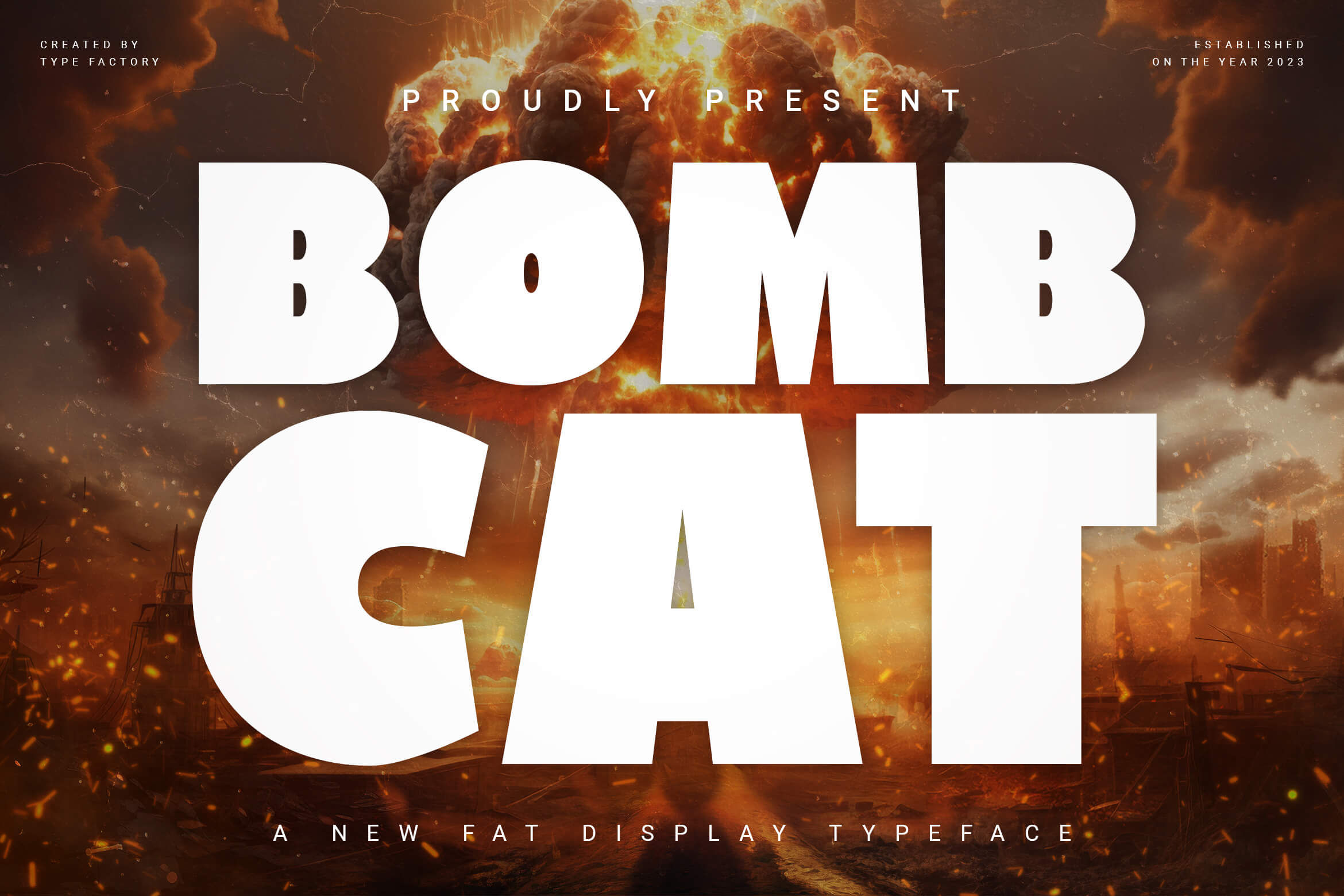
Made for gamers, Bombcat Display specializes in bold, eye-catching features. Its chunky style blends retro action energy with a modern edge, perfect for game logos and tournament posters.
2. Arnation
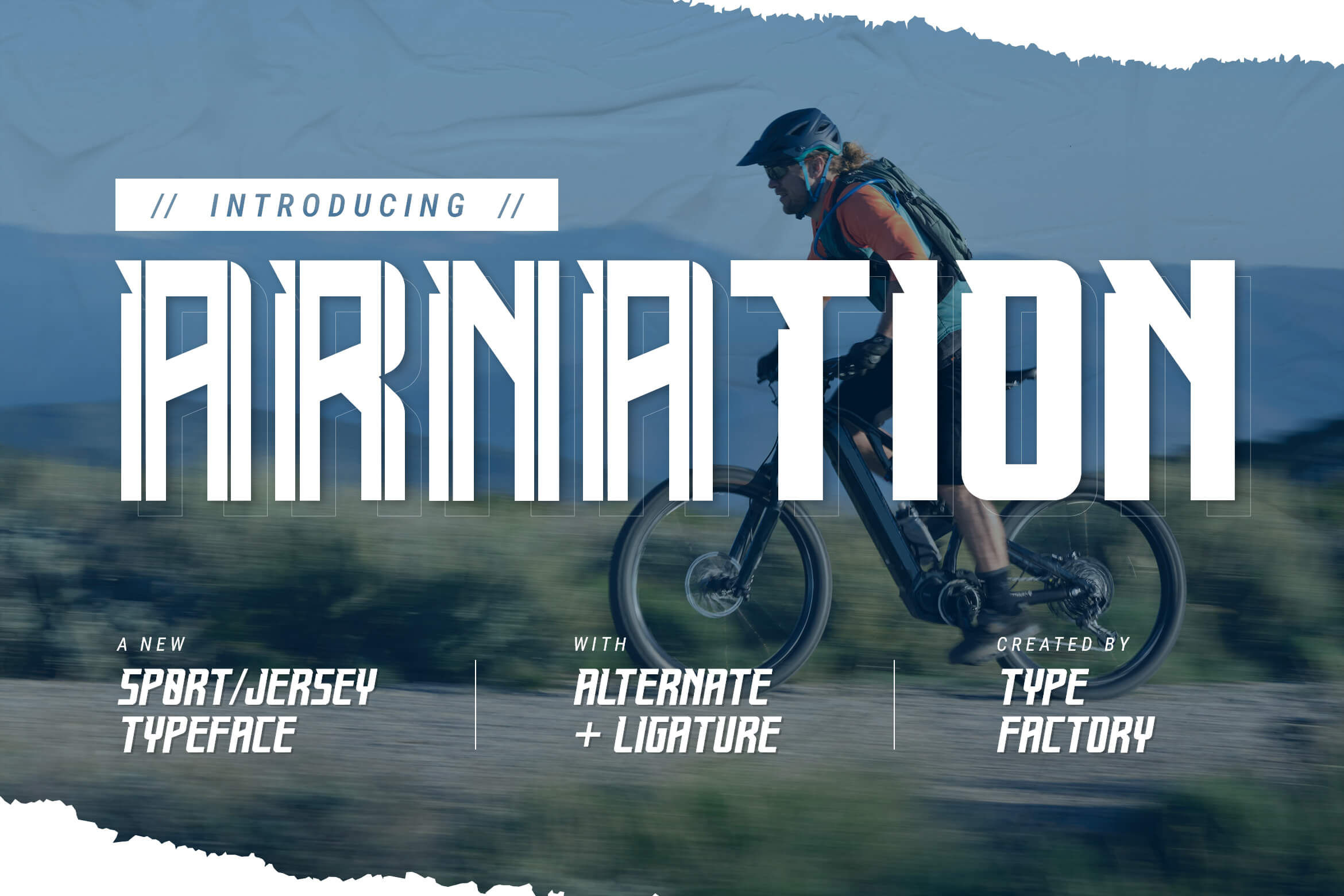
Arnation would add a sporty, game-day feel to your projects. Easy to read and full of character, it works great for logos, posters, and in-game UI, giving your designs a dynamic edge.
3. Helinex
Designed for a tech-focused theme, Helinex combines clean lines with innovative geometric letterforms. It works perfectly for video game interfaces and e-sports branding, which demand a modern, cutting-edge look.
4. Cybernetic
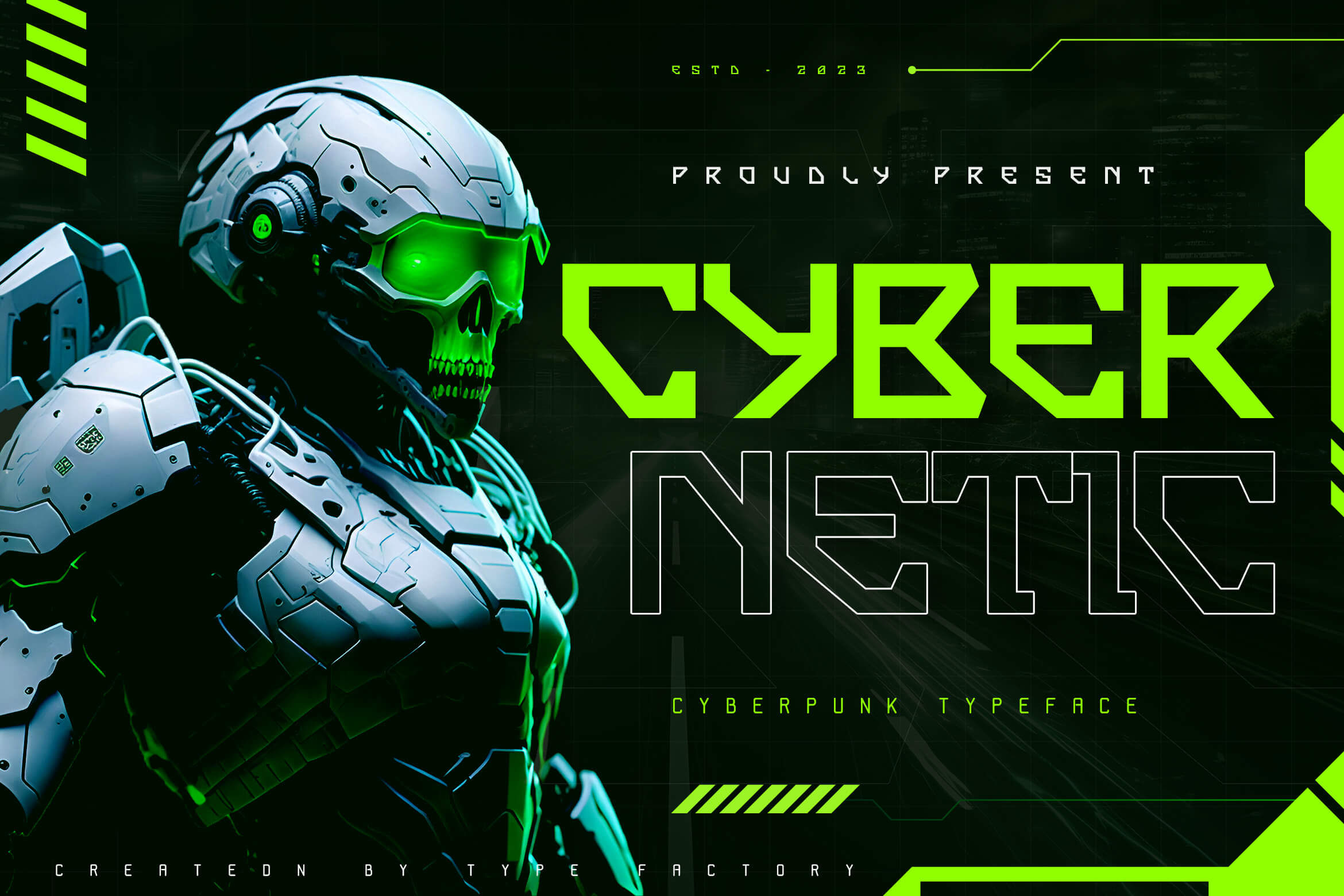
With its high-tech aesthetic and sharp, angular lines, Cybernetic embodies the dark tone of cyberpunk. Ideal for sci-fi games, it radiates a neon-lit, sleek vibe that evokes bustling futuristic cities.
5. Kraniven
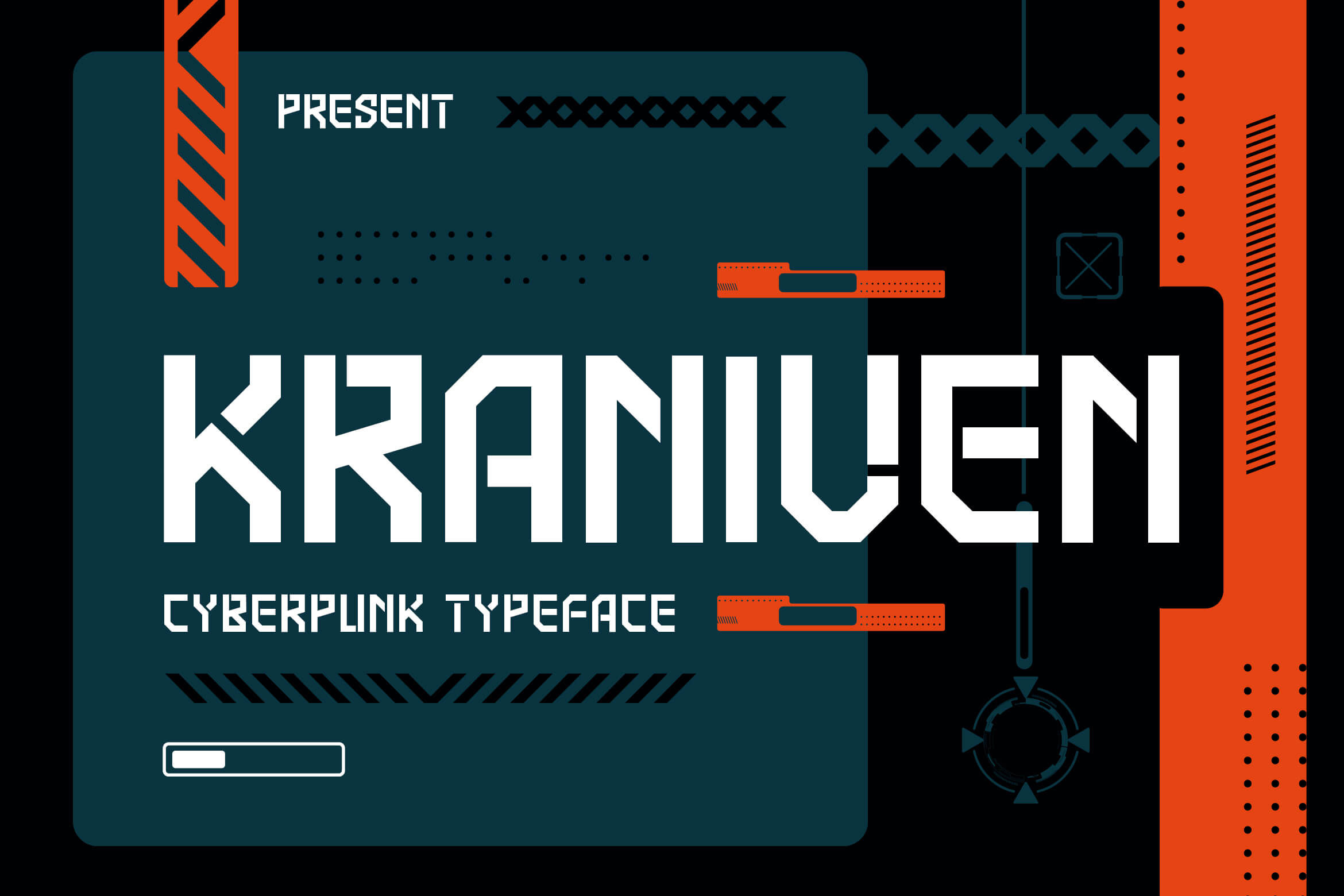
Bring dynamic energy to your designs with one of the best gaming fonts! Its sharp angles and fine details make it perfect for game interfaces, e-sports visuals, and high-tech graphics.
6. Hallister
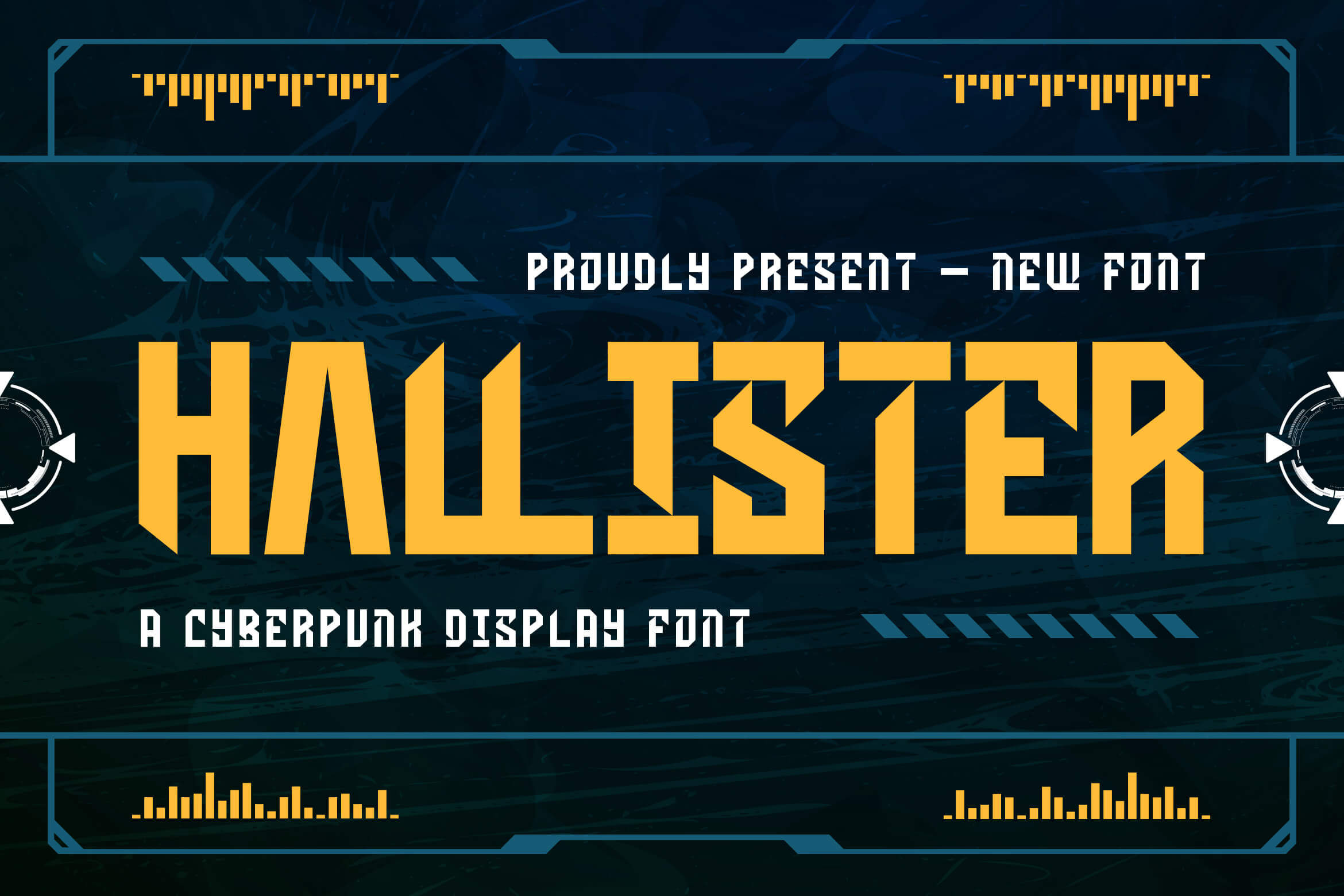
Hallister combines sharp angles and glitchy details to deliver a sleek, cyberpunk aesthetic. Ideal for game interfaces and e-sport posters to add a bold, professional edge.
7. Hackd
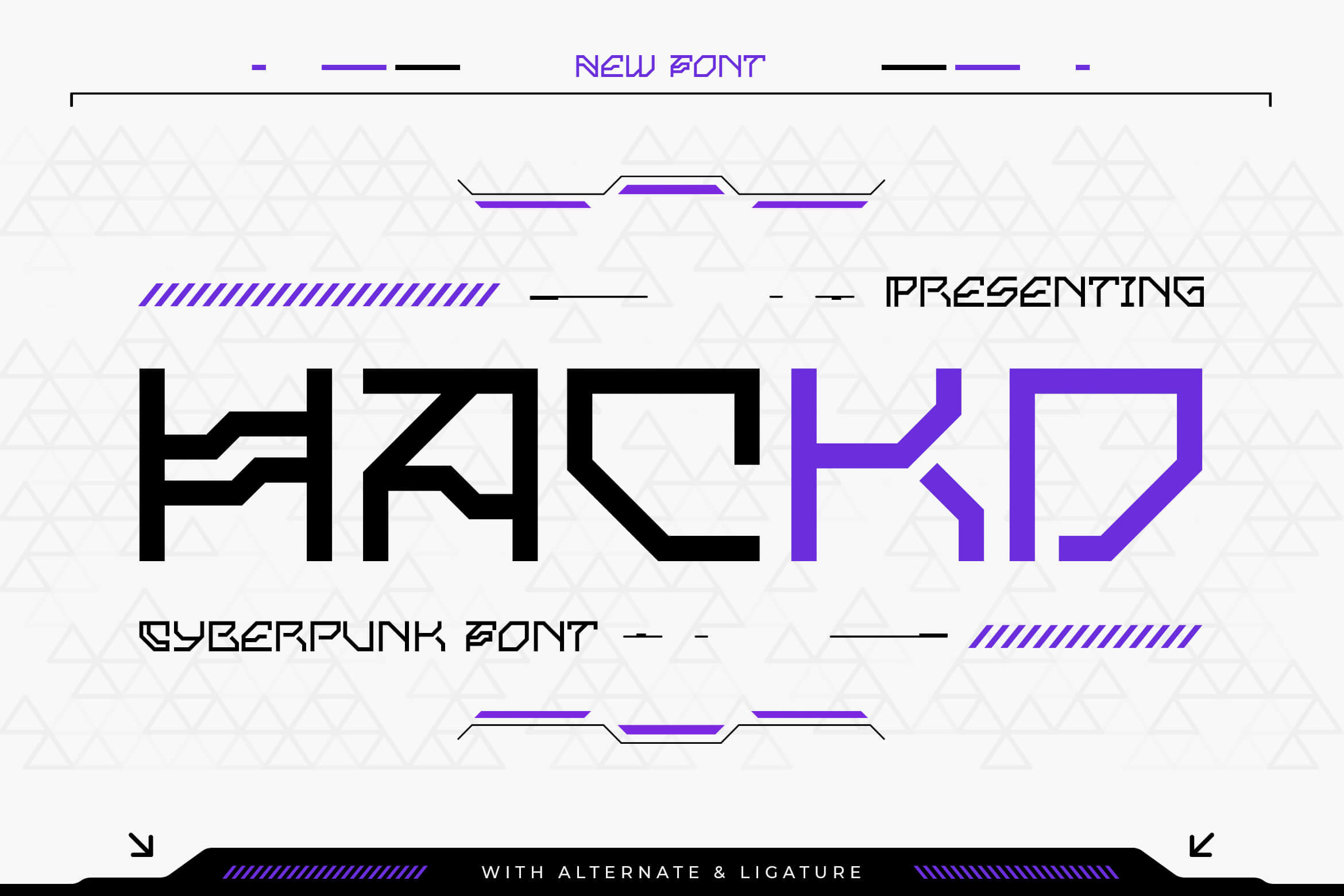
With Hackd, the cyberpunk typeface designed for rebels and rule-breakers, you can turn up the game. Its glitchy cuts and sharp edges scream hacker energy, making it perfect for game titles.
8. Hortens
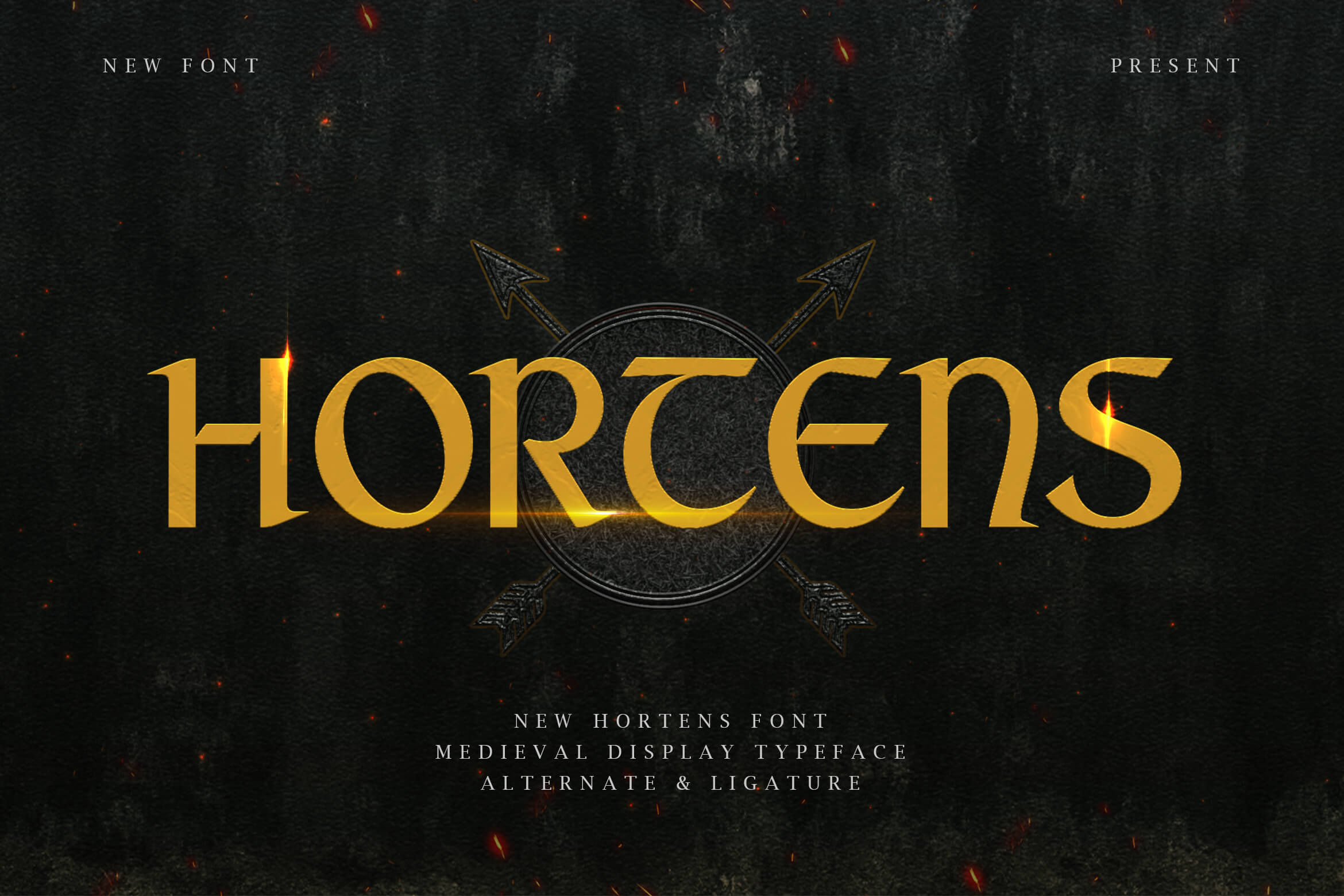
Bring history to your designs with Hortens! Its commanding style makes it a perfect fit for immersive gaming fonts and titles. Hortens adds an authentic, stone-carved medieval flair that demands attention.
9. Jolly Roger
With Jolly Roger, embark on a high-seas adventure! This pirate fantasy font captures the rugged charm of treasure maps, ship sails, and legendary voyages. Perfect for games with pirate-inspired themes.
10. Facehugger
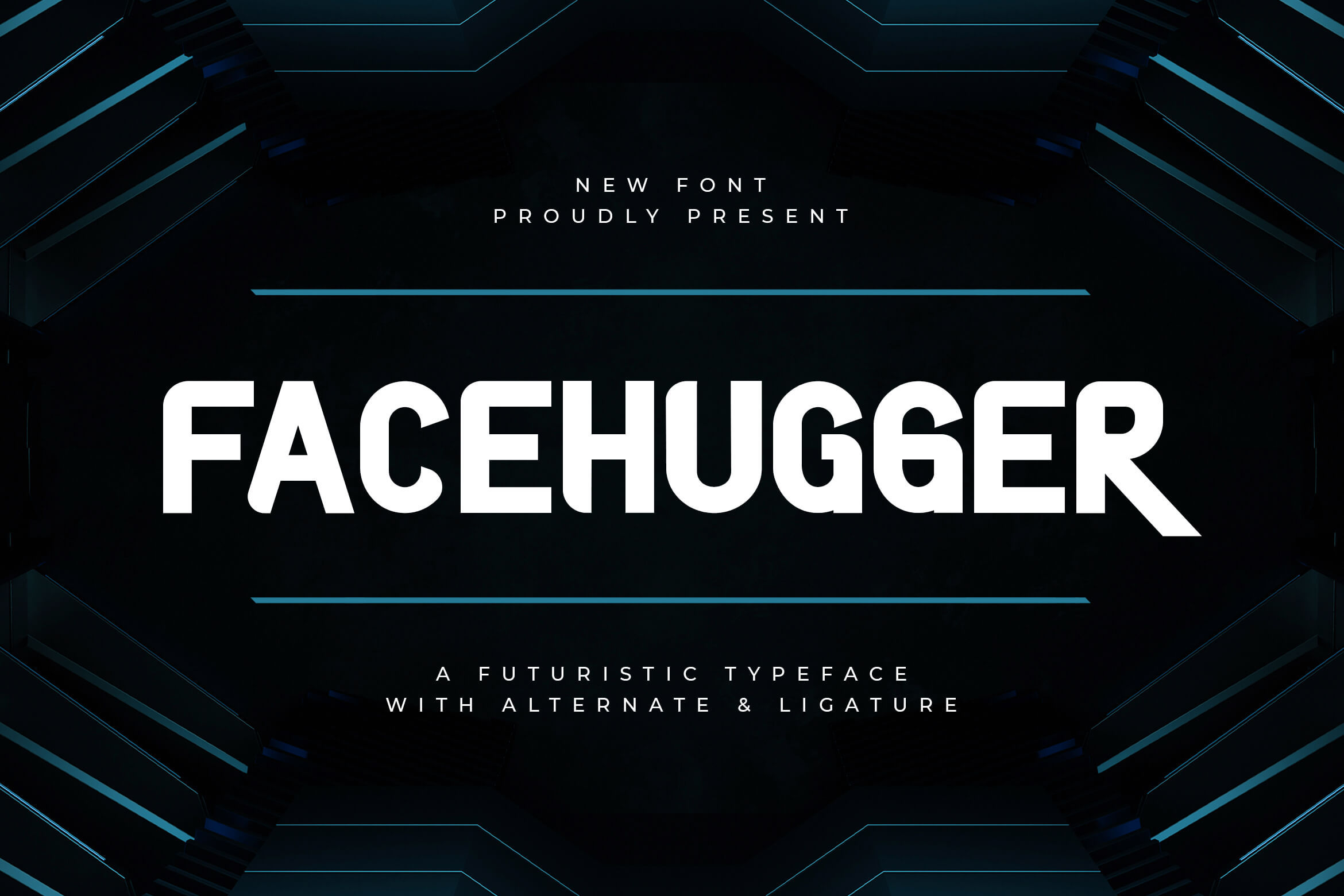
Facehugger offers a clean, futuristic look that fits perfectly with tech, space, and sci-fi game concepts. Take this to your design kit and make your best modern design.
11. Roboridge
Roboridge’s boldness and modernity make it a superb font for games with a tech theme. Its clean geometric style adds a sharp, futuristic edge to game logos, UI elements, and interfaces alike.
12. Methanerse
Blast off into the future with Methanerse! This futuristic font rocks sleek angles and modern style, perfect for game titles, sci-fi themes of game posters, and space-themed designs.
13. King Gaming
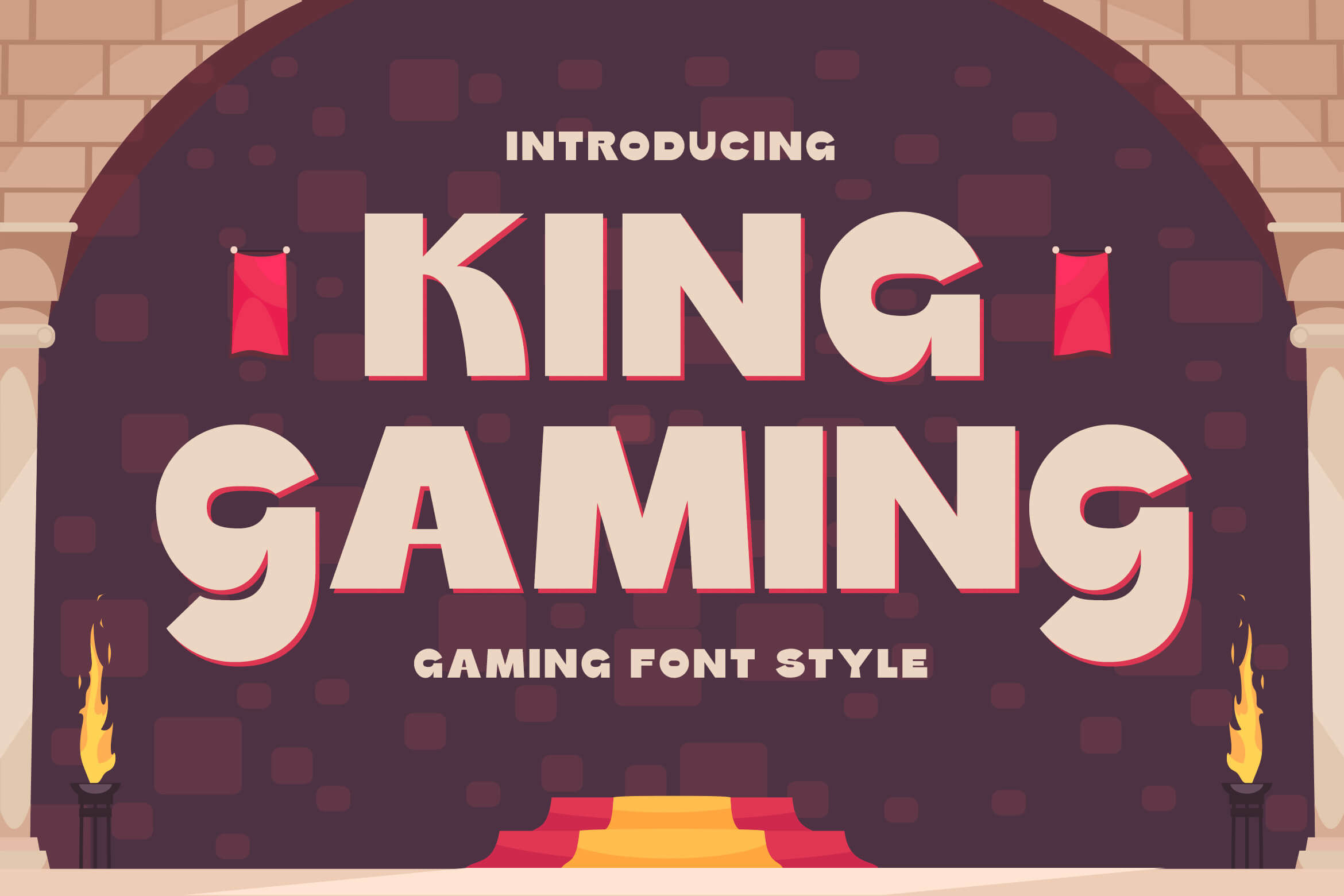
A bold game typeface that instantly conjures up feelings of adventure is King Gaming. Perfect for games with adventure themes to bring an exciting and dynamic touch.
14. Starburst
Launch your game into orbit with Starburst! This space-futuristic font features sharp angles and cosmic flair, designed to ignite players’ adrenaline and elevate any sci-fi gaming project.
15. Spring Bar
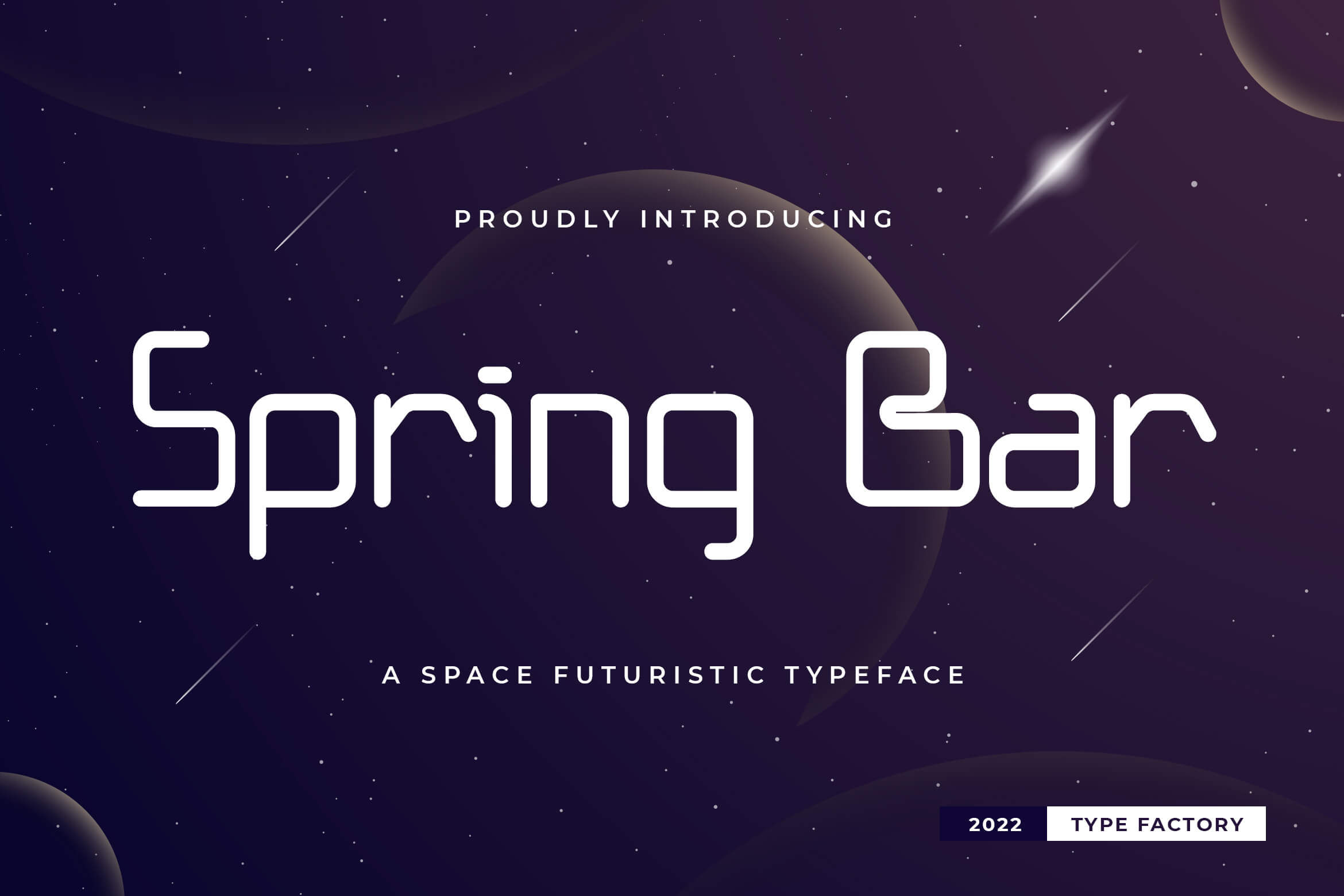
Another great option for a science-fiction theme is Spring Bar. This space-futuristic typeface blends clean geometric shapes with a sleek, modern edge, making it an ideal choice to pick as a font for gaming with a sci-fi atmosphere.
16. Return Space
For game posters that want to appear outstanding, Return Space is a brilliant space-futuristic typeface with clean lines and an innovative sci-fi vibe.
17. Singiko
Singiko brings a unique mix of digital glitch effects and sleek modern style. It’s great for designers who want to create gaming logos that feel fresh and eye-catching.
18. Creepy Grave
Creepy Grave is a thrilling horror font that fits perfectly into game design. Whether for character names, story screens, or creepy logos, it delivers a unique look.
Choose the Right Fonts for Maximum Impact
Selecting the perfect gaming fonts can elevate your project, whether it’s a game logo, e-sports poster, streaming channel graphics, or UI/UX design. Every typeface has a distinct tone and aesthetic, which aids in the development of a powerful, unified, and memorable visual.